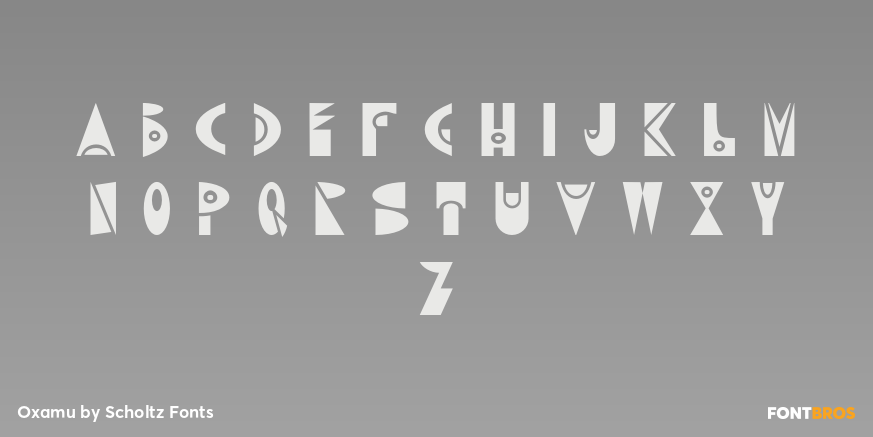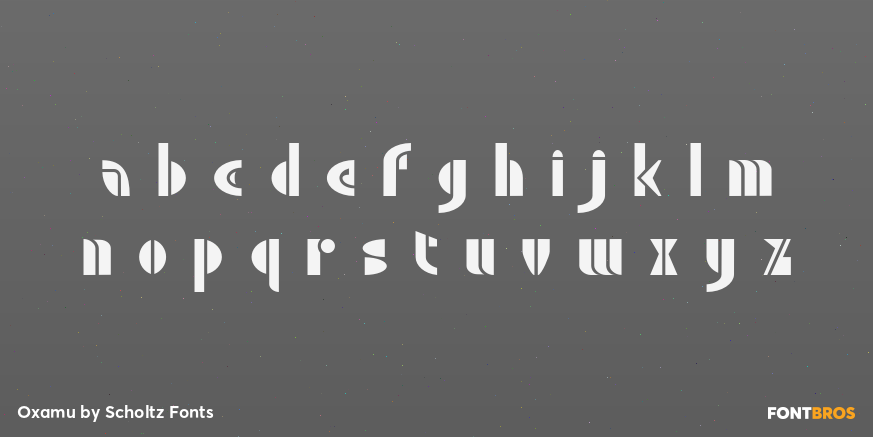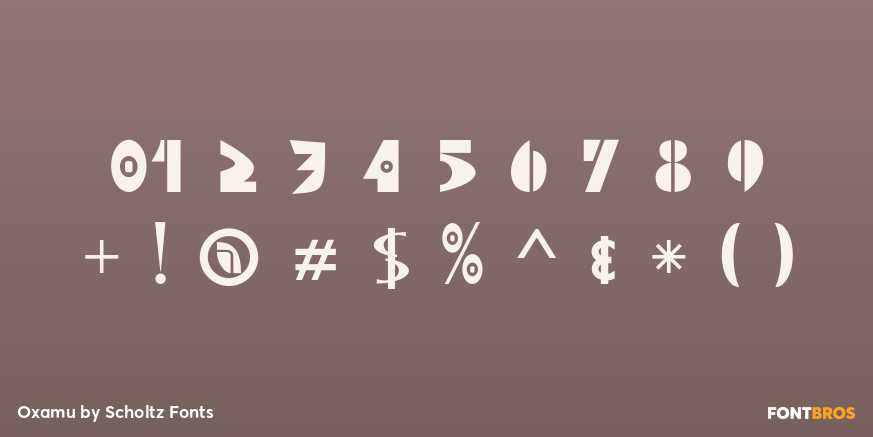
Oxamu
Font Family by Scholtz Fonts
Oxamu is a contemporary geometric font that sacrifices a degree of readability in order to create interesting and provocative letter forms.
The font is fully professional: carefully letterspaced and kerned. It contains over 230 characters - (upper and lower case characters, punctuation, numerals, symbols and accented characters are present). It also includes all the accented characters used in the major European languages.